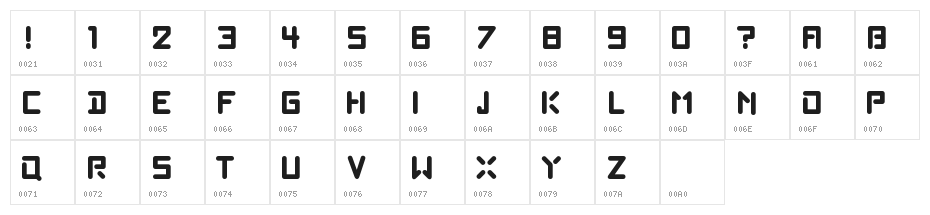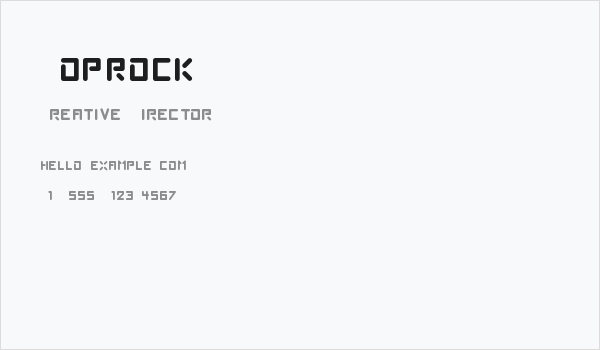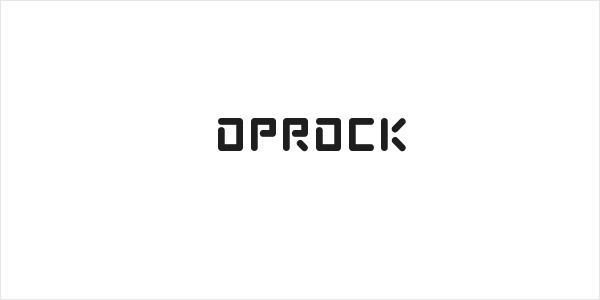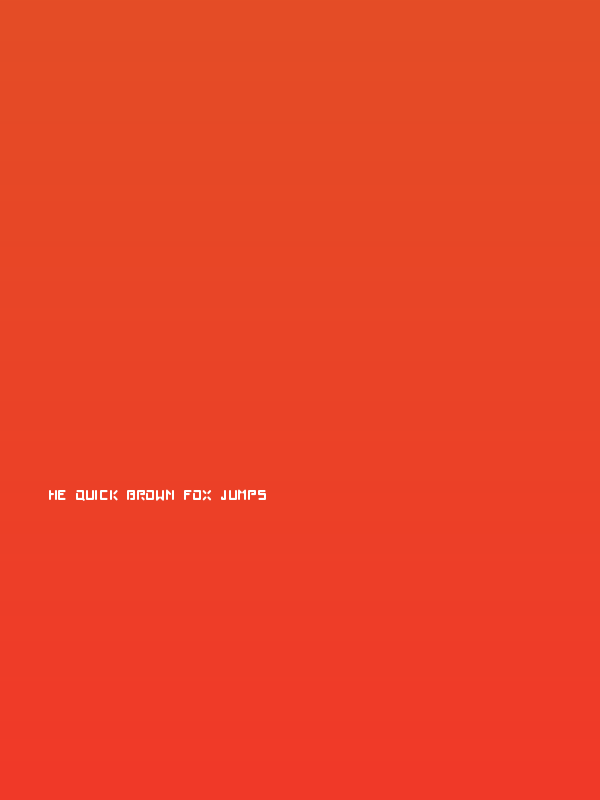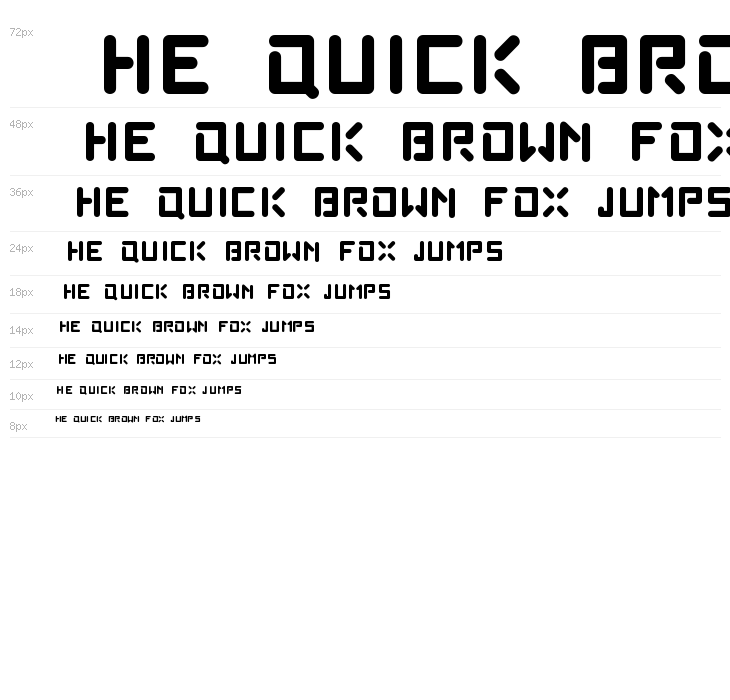
Poprock Font
Poprock Description
This font features a bold, geometric design with rounded edges, giving it a modern and futuristic appearance. The characters are uniform in width, creating a cohesive and structured look. The uppercase letters are distinct with a slight industrial feel, while the numbers and punctuation maintain the same boldness and clarity. The overall style is clean and minimalistic, making it suitable for various digital and print applications. Its unique style ensures legibility while adding a touch of modernity to any project.
| Use Case | Headlines, Logos, Digital interfaces |
| Proposed Projects | Ideal for tech branding, digital interfaces, video game graphics, and modern advertising campaigns. |